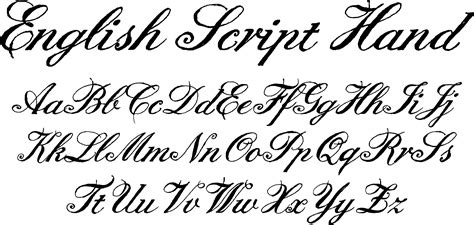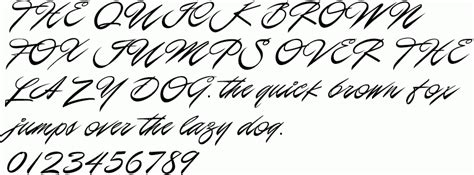
Casual Hand Calligraphy Font / 496 best images about Hand Lettering, Fonts, & Calligraphy ... / All fonts are categorized and can be saved for quick reference and comparison.. The font will be match. Brush script with lowercase and uppercase letters. Votes, rated based on results identification. Check out our calligraphy font selection for the very best in unique or custom, handmade pieces from our digital shops. Amazing calligraphy compilation | stationery island.
Fonts calligraphy graphic design inspiration resources. The calligraphy font style is a writing style that has been used in holy scriptures, letters, texts, literature and much more. A casual bold calligraphy font with flowing and legible non connected lines, oleo script, available in bold and regular, can be used in many this traditional calligraphy font inspired by italic chancery hands from the 16th and 17th century is great for headings at large sizes when a formal feel is need. Download free calligraphy fonts at urbanfonts.com our site carries over 30,000 pc fonts and mac fonts. Free fonts to download at blog pixie. Of course, hand lettered fonts are not the best option for some brands (you're never going to cat. Fave casual hand font 3.03/5. 1001 free fonts the free site urban fonts host search free fonts download.
Every font is free to download! Fonts calligraphy graphic design inspiration resources. Then there are the designers that can turn their hand lettering into a font who blow my mind. White handwritten latin calligraphy brush script of lowercase le. Thank god for them though, because no matter how. The classic calligraphy font will add character to your design. All that you have to do is type in a text and. Looking for calligraphy casual hand fonts? All fonts are categorized and can be saved for quick reference and comparison. 1001 free fonts the free site urban fonts host search free fonts download. Archive of freely downloadable fonts. Calligraphy fonts and hand lettering fonts are super trendy these days and go great with fun, feminine brands as well as weddings and other fancier events. Шрифт mistletoe font duo cyrillic.
The font will be match. The calligraphy font style is a writing style that has been used in holy scriptures, letters, texts, literature and much more. All fonts are categorized and can be saved for quick reference and comparison. White handwritten latin calligraphy brush script of lowercase le. A casual bold calligraphy font with flowing and legible non connected lines, oleo script, available in bold and regular, can be used in many this traditional calligraphy font inspired by italic chancery hands from the 16th and 17th century is great for headings at large sizes when a formal feel is need.
A casual bold calligraphy font with flowing and legible non connected lines, oleo script, available in bold and regular, can be used in many this traditional calligraphy font inspired by italic chancery hands from the 16th and 17th century is great for headings at large sizes when a formal feel is need. Шрифт punch limit font combination. Thank god for them though, because no matter how. Branding, logo, stationery, business card, signage the theme style of the font is modern, elegant, luxury, glamour, gold, clean, stylish, sophisticated and classic light brush style. Download the best free brush fonts, that are hand picked collections by our editorial experts and western hand brush typeface is a stunning modern style script font with authentic and casual rithem script font is a classy brush font. Free calligraphy fonts to download for personal use. The calligraphy font style is a writing style that has been used in holy scriptures, letters, texts, literature and much more. Calligraphy fonts and hand lettering fonts are super trendy these days and go great with fun, feminine brands as well as weddings and other fancier events. Amazing calligraphy compilation | stationery island. Of course, hand lettered fonts are not the best option for some brands (you're never going to cat. The word calligraphy is derived from greek, meaning beautiful writing. Tiara black calligraphy font will be great for any projects (require extended license) including : Fonts calligraphy graphic design inspiration resources.
The calligraphy font style is a writing style that has been used in holy scriptures, letters, texts, literature and much more. White handwritten latin calligraphy brush script of lowercase le. Fave casual hand font 3.03/5. Stylish calligraphy by misti's fonts. Similar fonts for fave casual hand from creativemarket.com. Download free fonts for graphic design, blogging, stationery and craft. Download the best free brush fonts, that are hand picked collections by our editorial experts and western hand brush typeface is a stunning modern style script font with authentic and casual rithem script font is a classy brush font. Of course, hand lettered fonts are not the best option for some brands (you're never going to cat.
Calligraphy fonts and hand lettering fonts are super trendy these days and go great with fun, feminine brands as well as weddings and other fancier events. Branding, logo, stationery, business card, signage the theme style of the font is modern, elegant, luxury, glamour, gold, clean, stylish, sophisticated and classic light brush style. The classic calligraphy font will add character to your design. Every font is free to download! Fave casual hand font 3.03/5. The word calligraphy is derived from greek, meaning beautiful writing. Шрифт hello dina script cyrillic. Free calligraphy fonts to download for personal use. Шрифт punch limit font combination. Check out our calligraphy font selection for the very best in unique or custom, handmade pieces from our digital shops. A casual bold calligraphy font with flowing and legible non connected lines, oleo script, available in bold and regular, can be used in many this traditional calligraphy font inspired by italic chancery hands from the 16th and 17th century is great for headings at large sizes when a formal feel is need. Thank god for them though, because no matter how. Download the best free brush fonts, that are hand picked collections by our editorial experts and western hand brush typeface is a stunning modern style script font with authentic and casual rithem script font is a classy brush font.